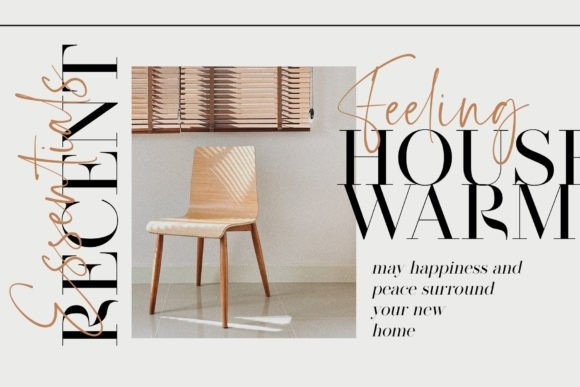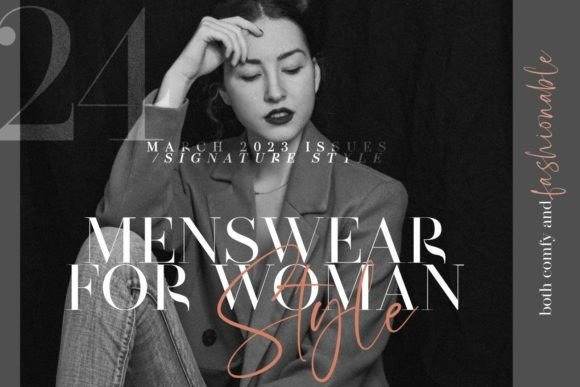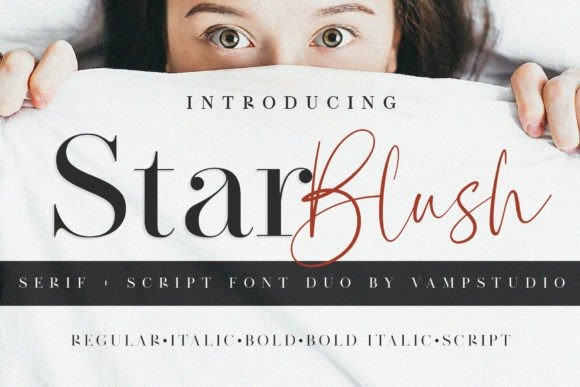
Star Blush Font
Star Blush Font, a carefully crafted and perfectly balanced set of elegant serif and realistic script typefaces.
Star Blush Script, a thin and realistic textured handwriting font, hand-drawn with a real fine-tip pen. This font is PUA encoded which means you can access all of the amazing glyphs and ligatures with ease!